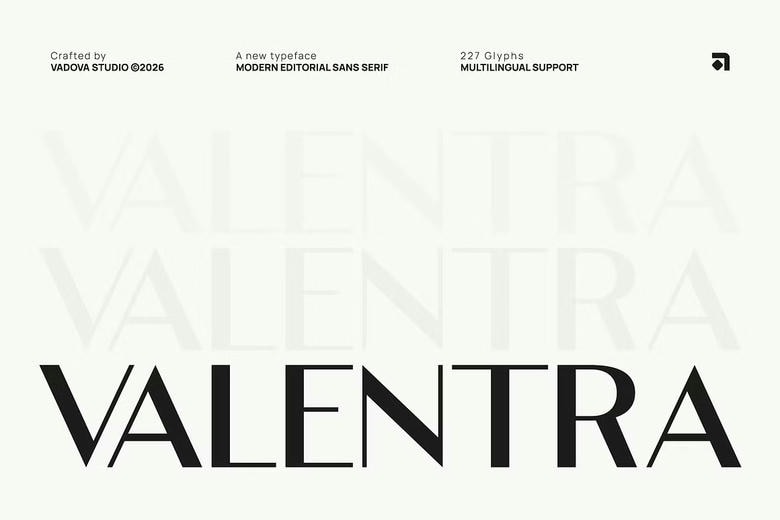
Valentra Font
Valentra is a contemporary editorial sans serif typeface, which has graceful proportions and elegant letterforms. The font has a well-balanced and elegant aesthetic that makes it appropriate to use as an element in modern design projects due to a mixture of clean geometric form and slight editorial features. Its well-designed lines and curved lines give it great readability without losing its elegant, modern look.
Valentra is created to suit contemporary editorial and branding settings when clarity and elegance are crucial. The elegant sans serif form is an excellent choice to use in magazine designs, editorial headlines, branding systems and contemporary corporate identities. Its harmonious ratios also make it convenient in advertisement materials, pocket-wrapping/design, and the visuals of electronic marketing that need advanced and modern typography.